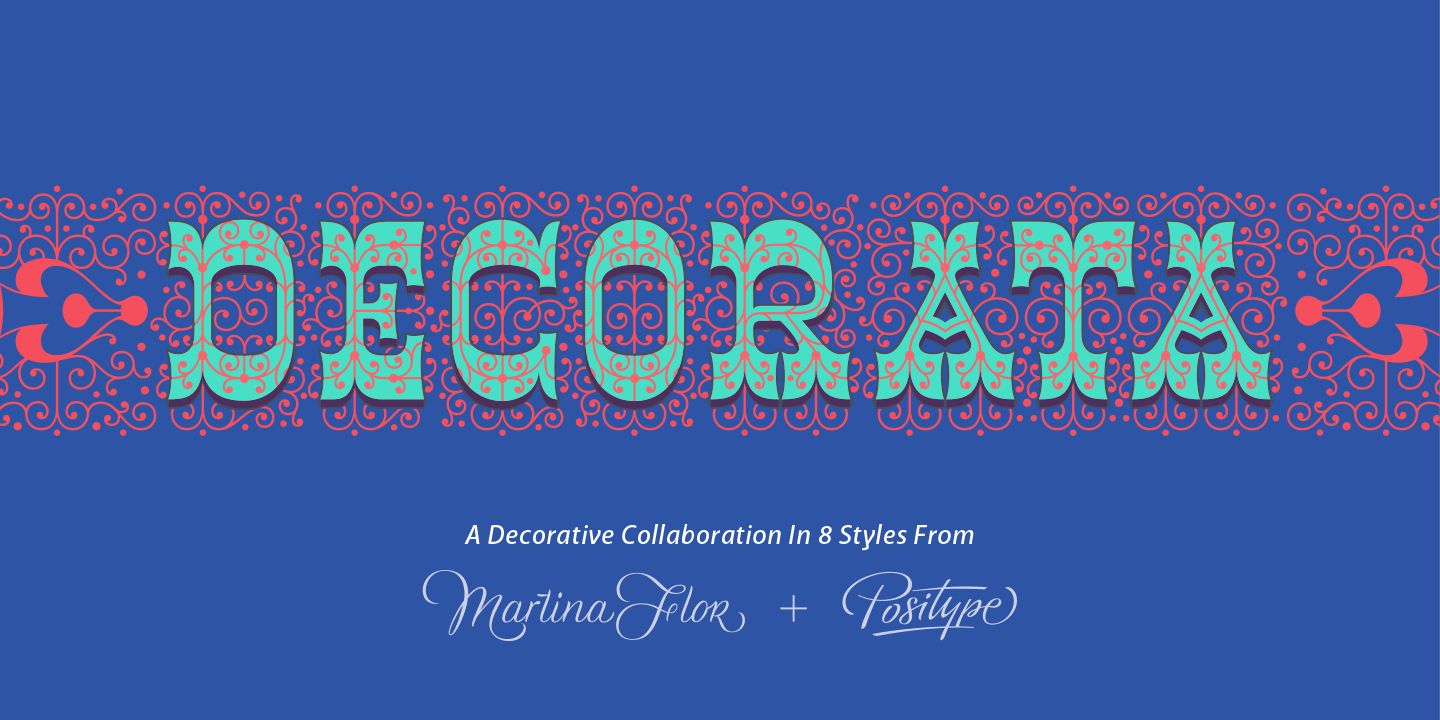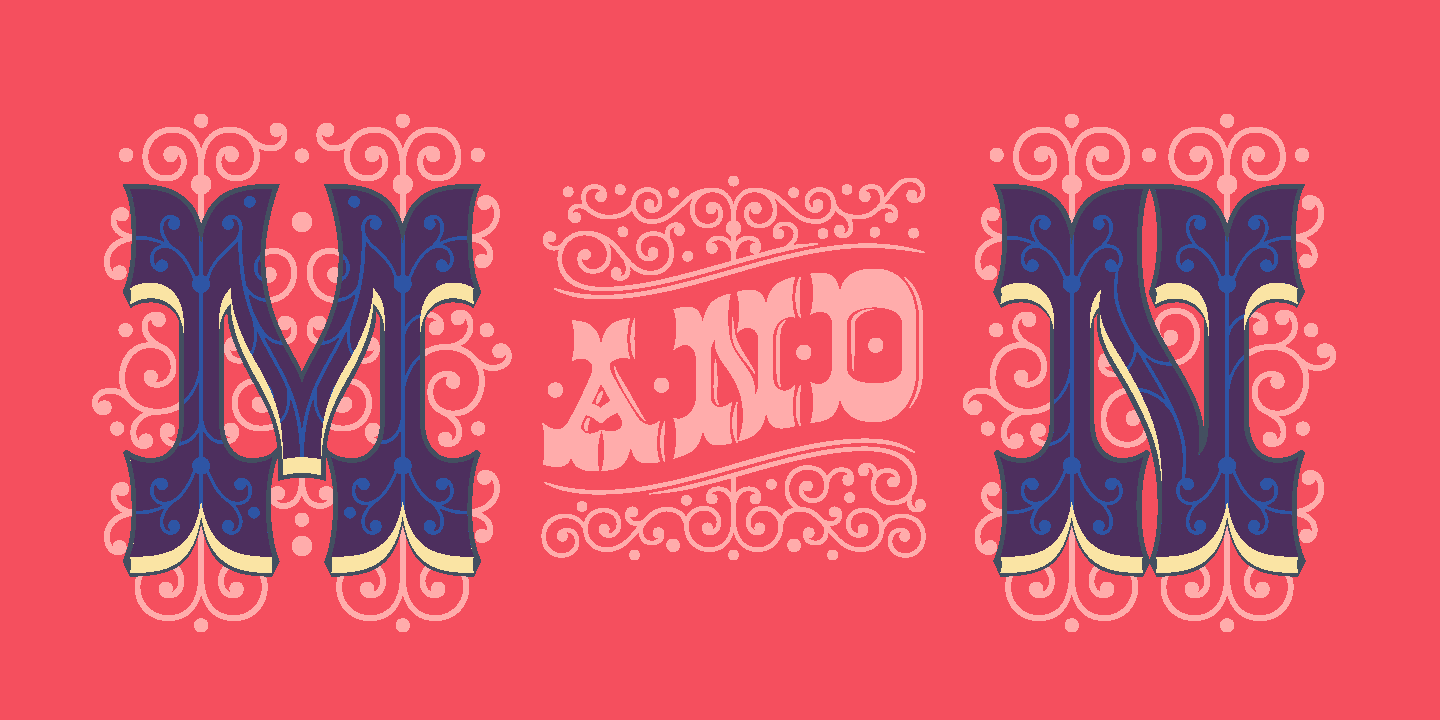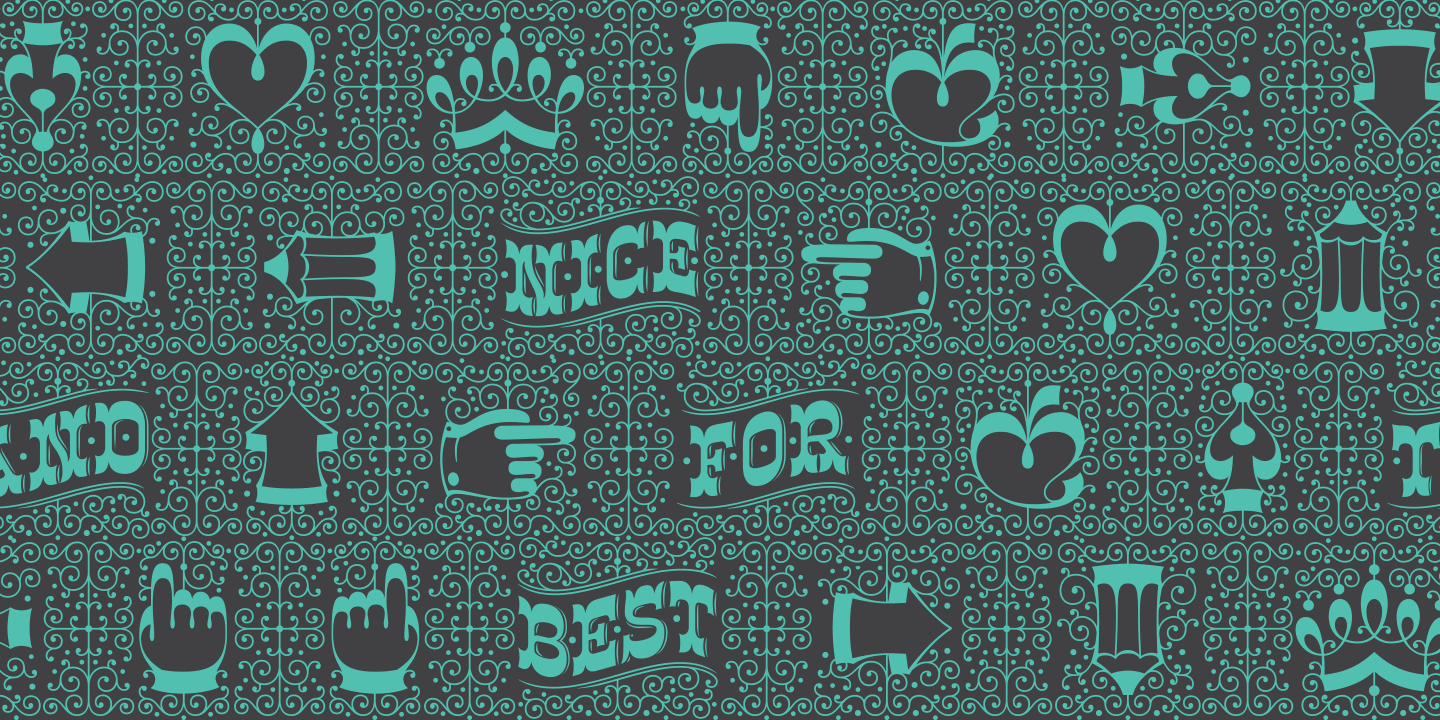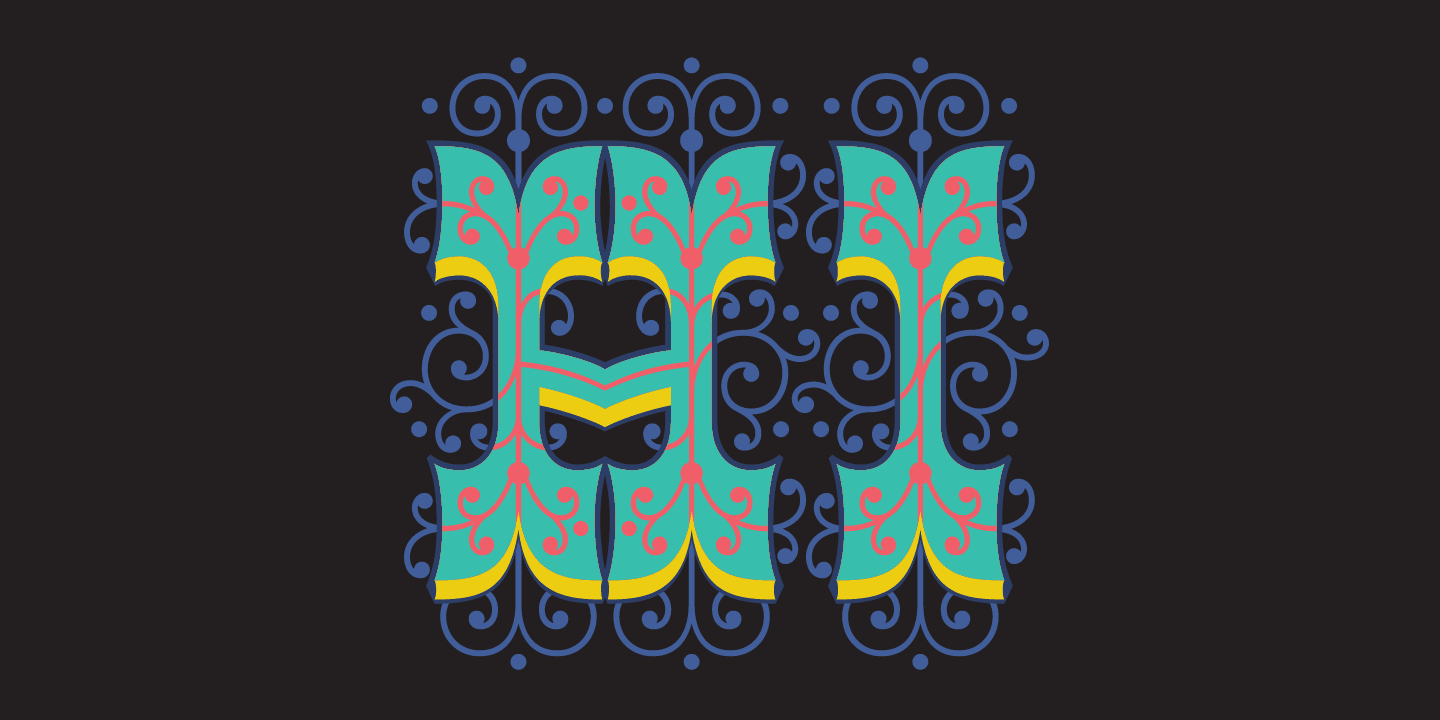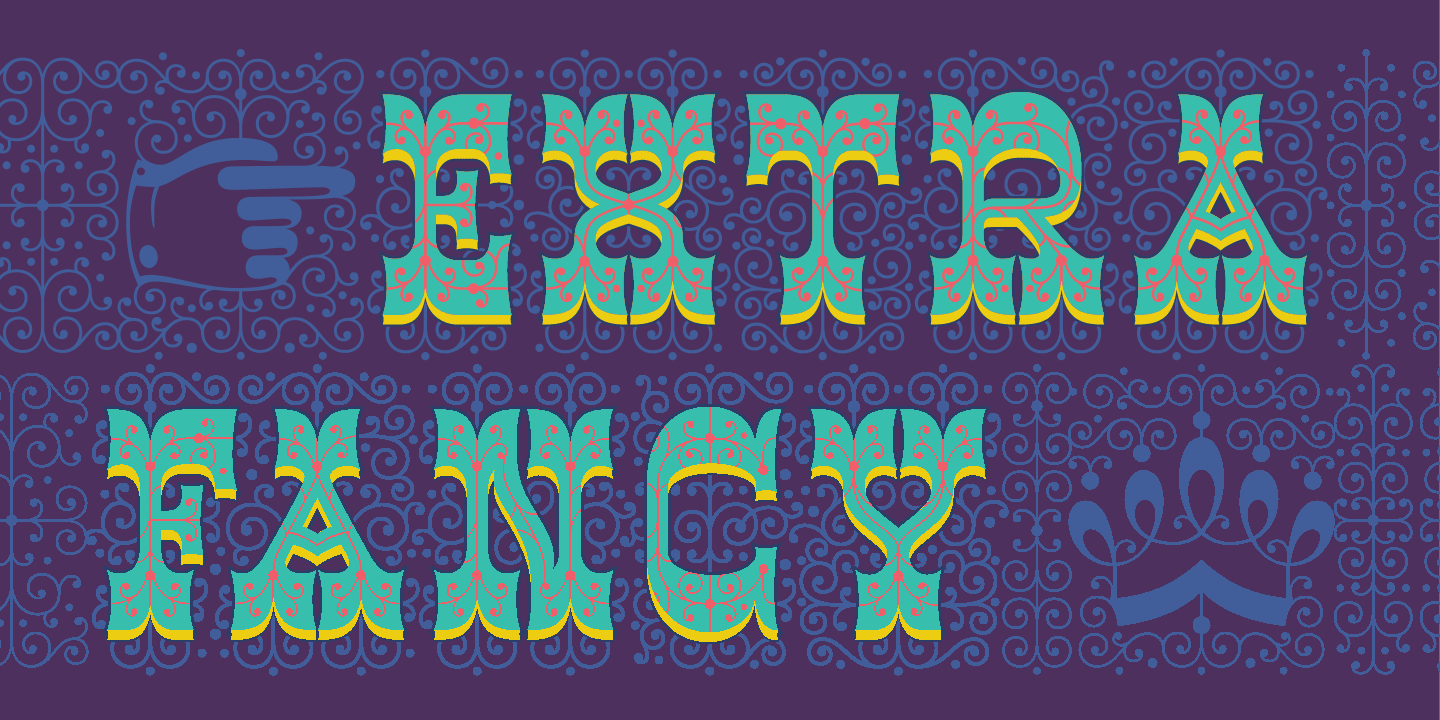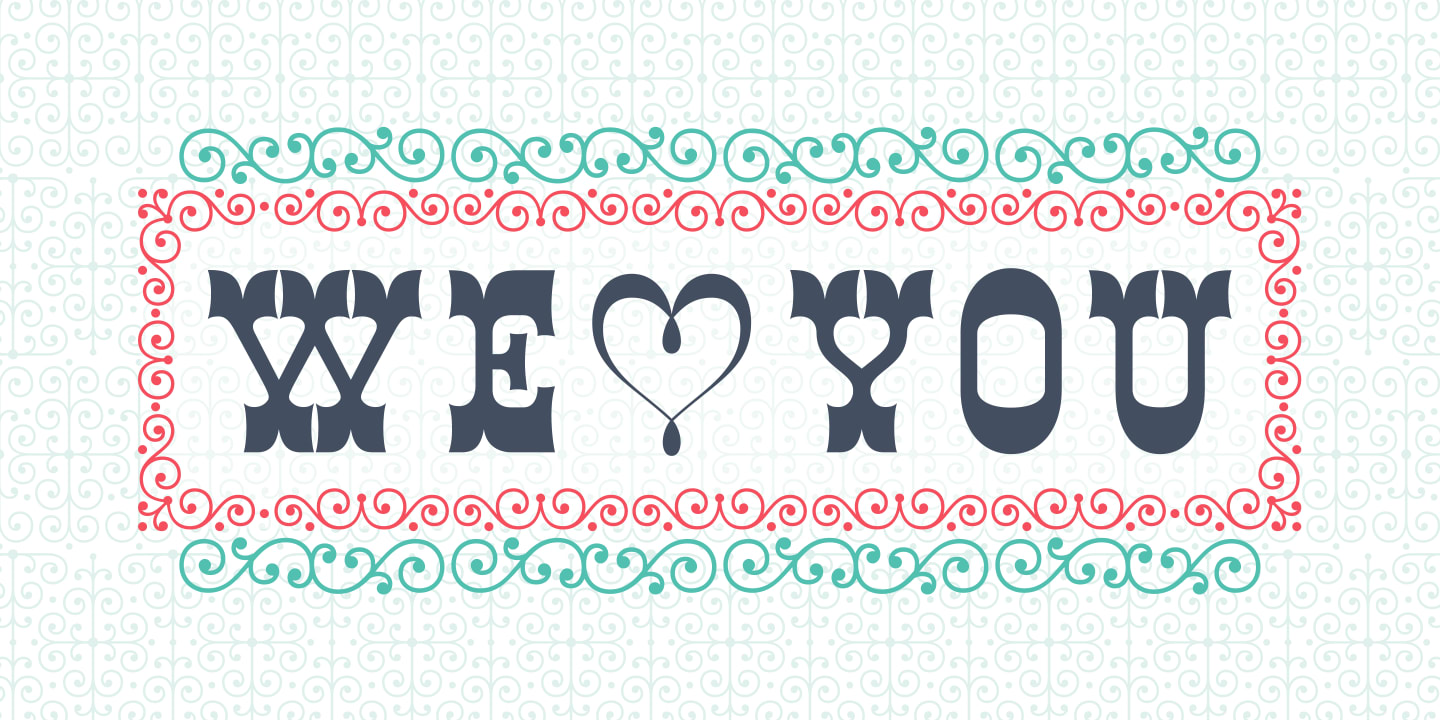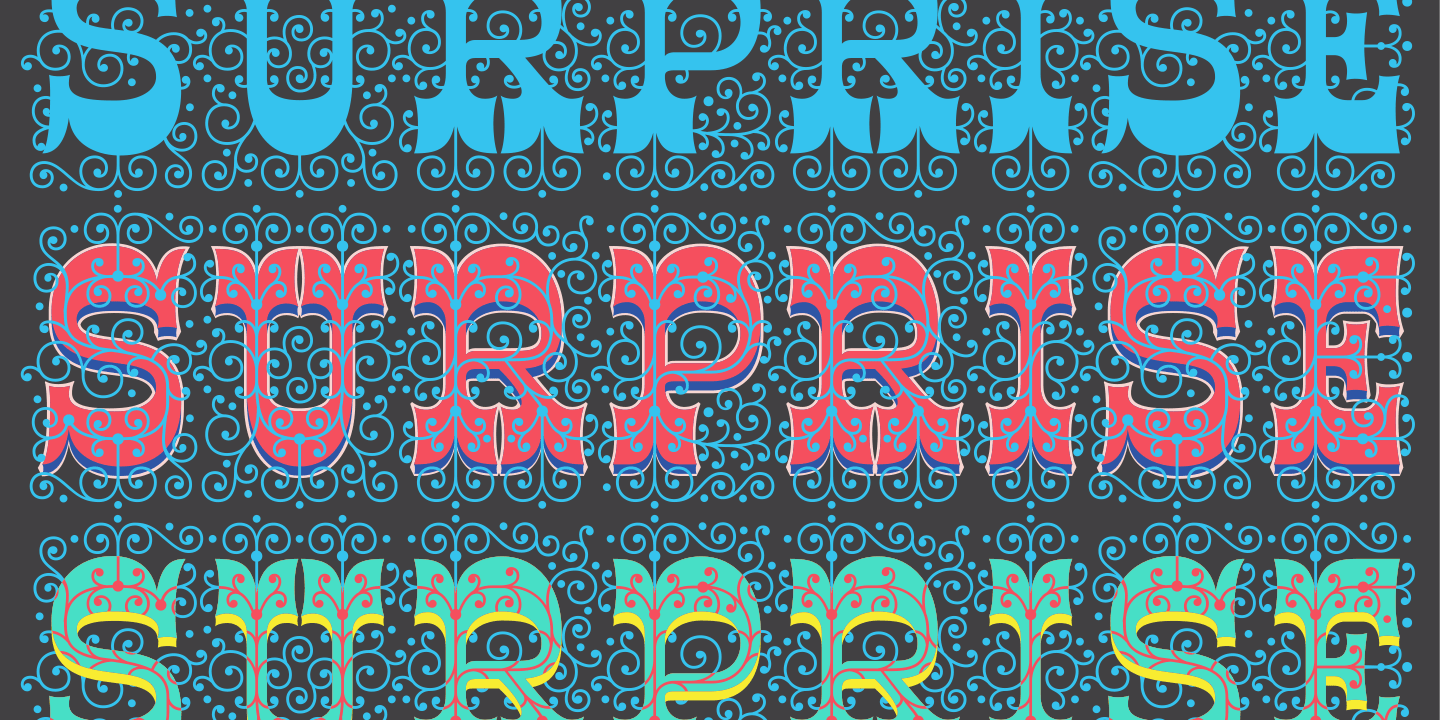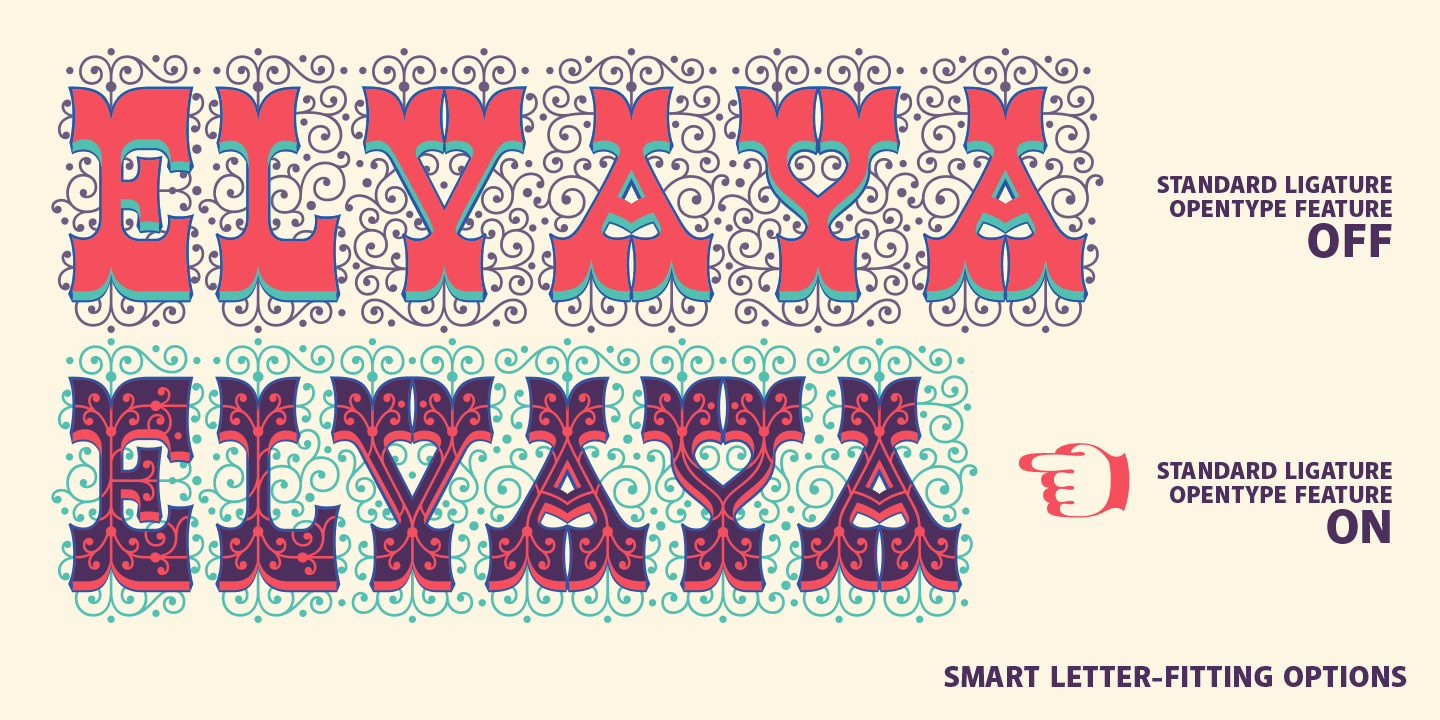
Decorata
Designer:Neil Summerour, Martina Flor
Description
How many times have you seen lettering on a book cover, poster, or card and wanted to make something similar? Decorata’s eight intertwining weights finally make that possible in an intelligent way. The first major collaboration of its kind, Decorata pairs the talents of supreme lettering artist Martina Flor and masterful type designer Neil Summerour. Lettering was traditionally understood as using words in an artistic way, while type design created written language for easy reading, the one overlapping the other in several ways. For this unique project, Martina created several versions of the alphabet and its decorative layers in her eye-catching style. Neil then took those designs and created an enormous eight-style font family that respects the designer’s need for control and capitalizes on the artist’s expressiveness.
Each style can work separately but, on top of the foundational styles, try placing the Lace, then Filigree in contrasting colors. Use any OpenType-capable program to turn headlines from blasé to wowza, make posters with some pow, and design your own cards with that just-right level of detail. Whatever idea you can imagine with the Decorata family, it promises to be a playful and precise wordsmith where the words themselves are the art.
Decorata’s glyphs are bifurcated, have medium contrast to showcase their intricate interactions, and include Shadow, Regular, Outline, Filigree, Lace, Fancy, Intricate, and Dingbat styles — eight in all. The Regular style sets the word or phrase to begin the design, Shadow ensures it lifts off the background, and Outline attempts to restrain its ornate flair. Think of those as the foundation and use the rest of the styles for flamboyance. The Intricate and Filigree styles vary only in the thickness of the glyphs, with Filigree being thinner. Lace removes the external curls around each letter but keeps the internal negative space from those decorative lines. The Fancy style is a solid lettershape that includes its attendant elements, and the Dingbats are exactly as expected: borders, manicules, patterns, frames, and many stylized items to bring designs to life.